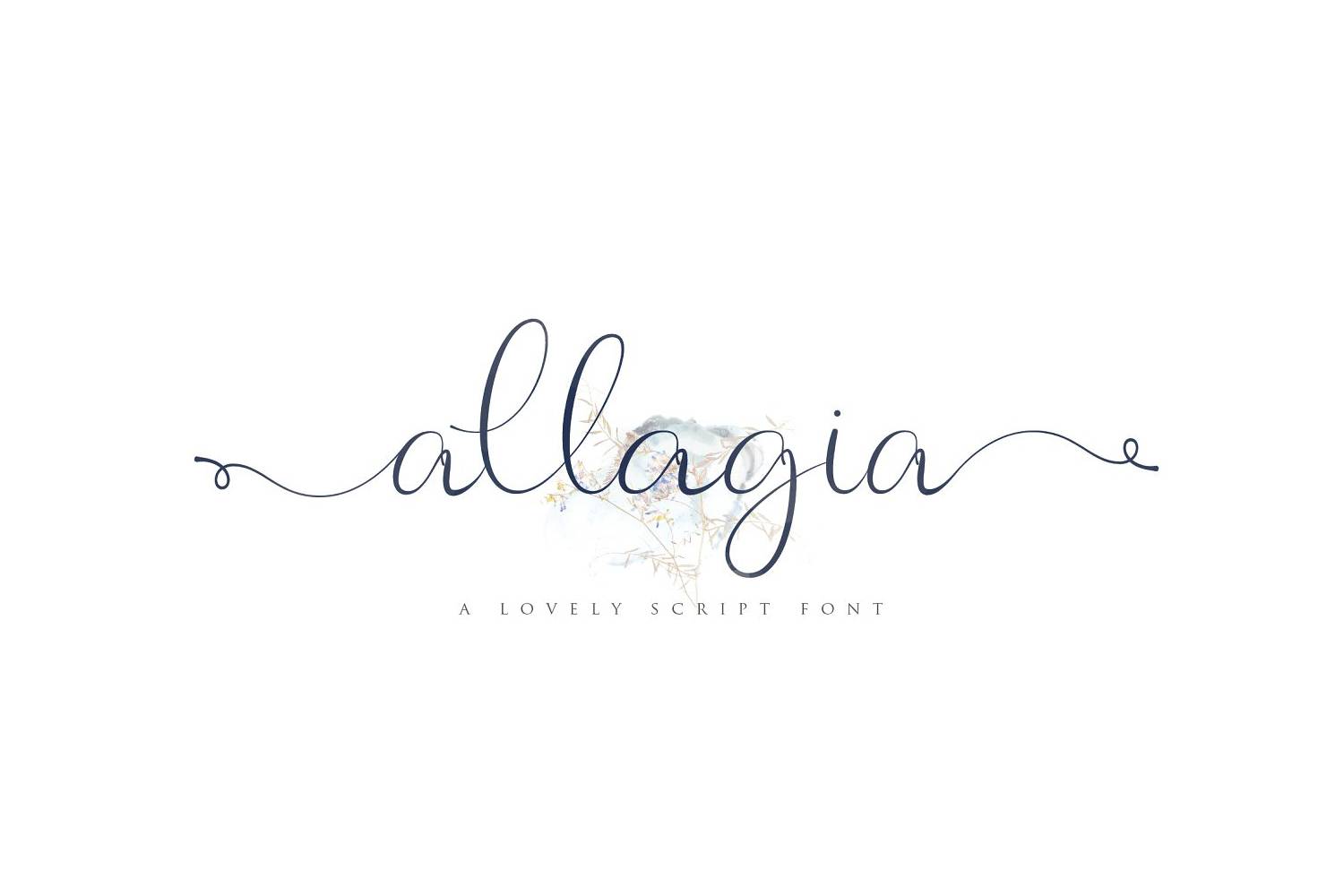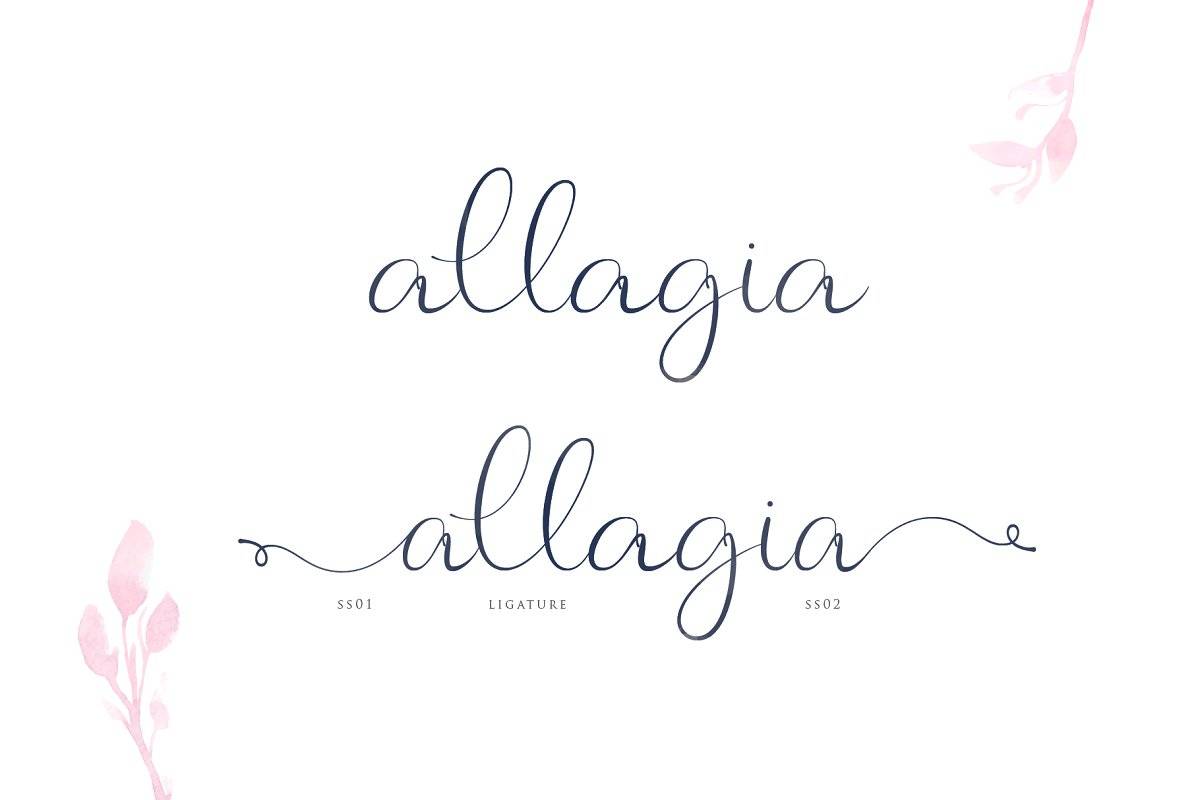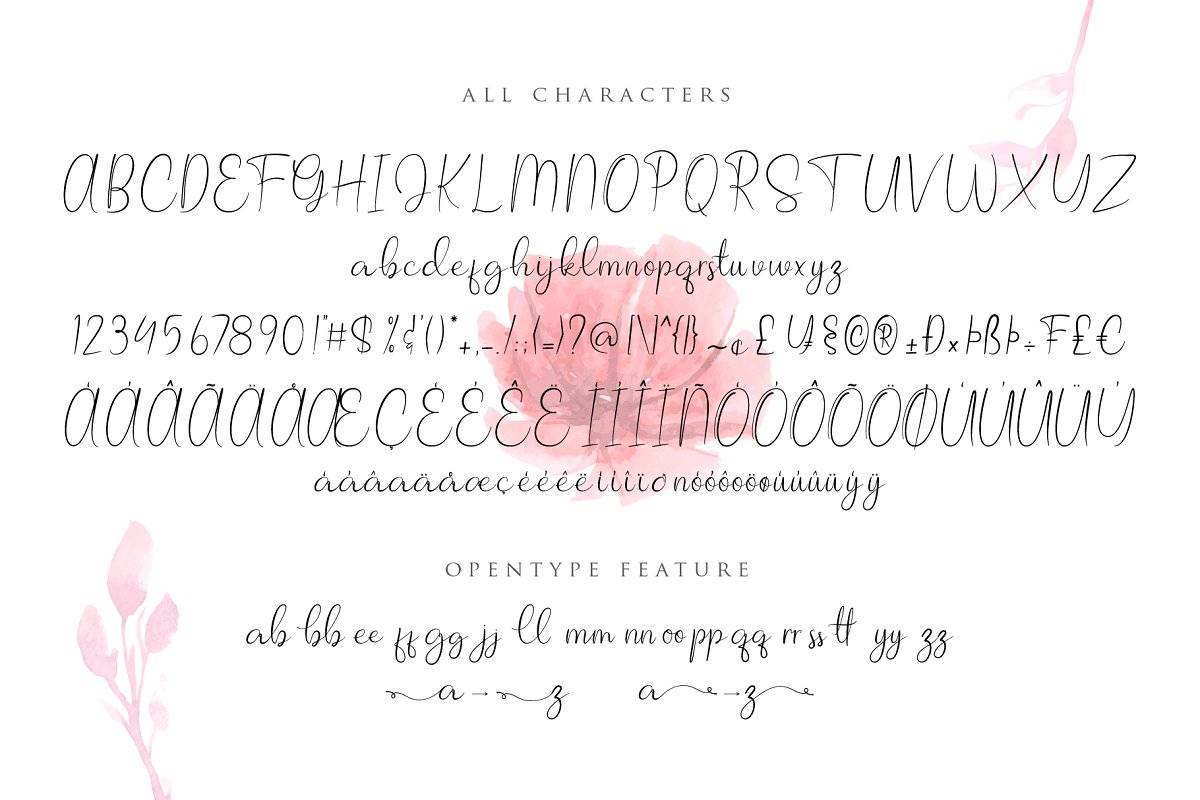
Allagia is a delicate, elegant script font characterized by its ultra-thin strokes and tall, narrow letterforms that convey a refined, airy feel. Its whimsical, hand-drawn style with playful loops and curls makes it perfect for feminine branding, invitations, and decorative headlines where a light, sophisticated touch is desired. This font works best in large sizes for creative projects that seek a graceful, artistic flair rather than body text.
Allagia Font
About Allagia Font
| Font family | Allagia Font |
| Designer | Sabertype Studio |